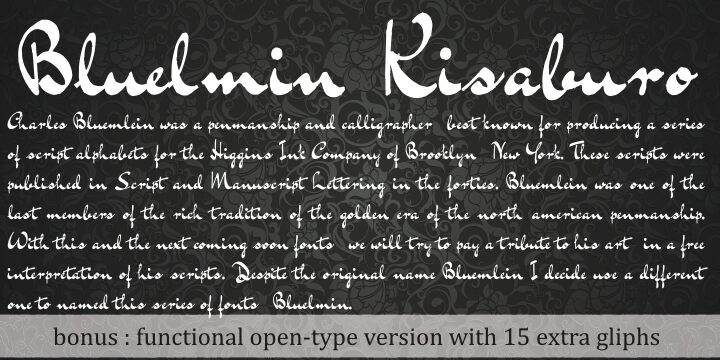
Bluelmin Kisaburo by Paulo W. is a free brush script with an ink-loaded sweep. Broad downstrokes break into sharp hooks and thin, fast joins, giving the letters an uneven line. Tall forms rise dramatically above the smaller letters.
It turns brand names into painted signatures for fashion labels and album artwork. Abrupt changes in weight also suit concert posters, where the lettering can become part of the graphic. Its more intimate side fits invitations and personal stationery.
Bluelmin Kisaburo is based on the work of Charles Bluemlein, a penman and calligrapher best known for producing script alphabets for the Higgins Ink Company of Brooklyn, New York. These scripts were published in Script and Manuscript Lettering in the 1940s.
Bluemlein was one of the last members of the North American penmanship tradition’s golden era. Although the original name was Bluemlein, I chose Bluelmin as the name for this series of fonts.
The OpenType version includes fifteen additional glyphs accessible through OpenType features in most software.